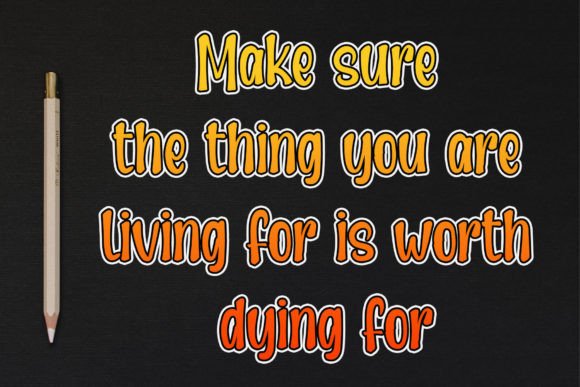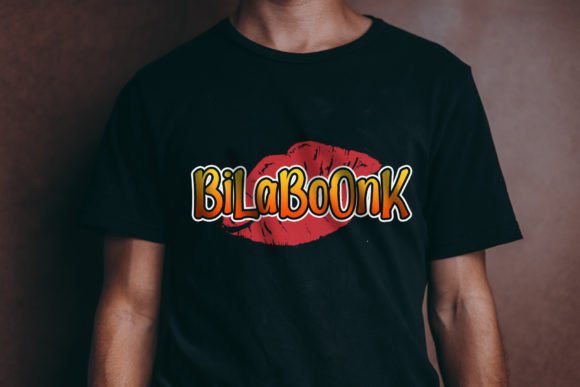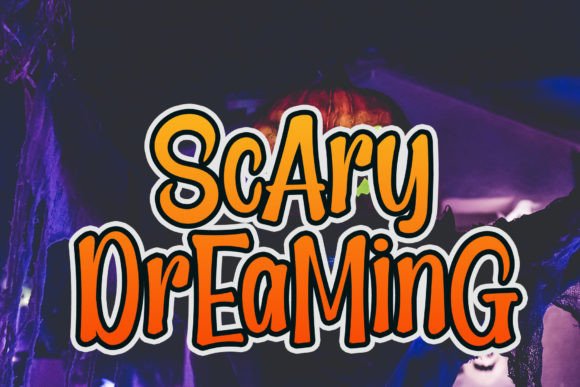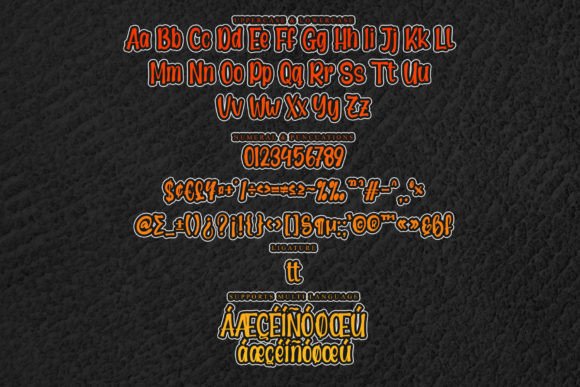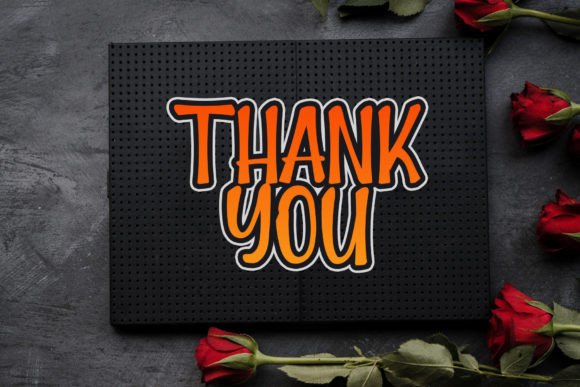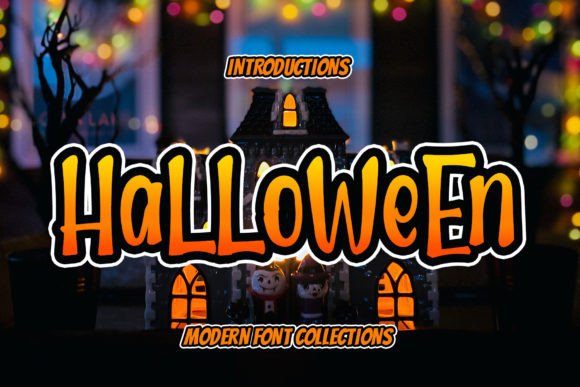
Unleash the Spooky Spirit with Halloween Font: A Sweet and Spooky Handwritten Delight
Halloween is just around the corner, and what better way to get into the spirit than with a font that’s as sweet as it is spooky? Look no further than the Halloween Font, a gentle yet bold handwritten font that’s perfect for adding a touch of eerie elegance to your designs. In this article, we’ll dive into the world of Halloween Font and explore how this versatile typeface can elevate your projects and make them stand out from the crowd.
The Perfect Blend of Sweet and Spooky
Halloween Font is a masterful blend of contradictory characteristics. On one hand, it’s a sweet and gentle font that’s perfect for creating designs that are playful and fun. On the other hand, it’s also spooky and eerie, making it ideal for projects that require a touch of darkness and intrigue. This unique blend of characteristics makes Halloween Font the perfect choice for designers and crafters who want to create designs that are both captivating and memorable.
A Versatile Font for a Variety of Design Ideas
One of the best things about Halloween Font is its versatility. This font is perfect for a wide range of design ideas, from Halloween-themed party invitations and decorations to spooky social media graphics and blog posts. Whether you’re creating a DIY craft project or a professional design, Halloween Font is sure to add a touch of magic and wonder to your work.
Adding a Joyful and Bold Touch to Your Projects
Halloween Font is more than just a font – it’s an experience. With its bold and playful lettering, this font is sure to add a joyful and energetic touch to your projects. Whether you’re creating a design for a kids’ party or a spooky movie night, Halloween Font is the perfect choice for adding a touch of excitement and enthusiasm to your work.
Halloween Font is a dream come true for designers and crafters. With its easy-to-read lettering and versatile design, this font is perfect for a wide range of projects, from handmade cards and invitations to professional designs and graphics. Whether you’re a seasoned designer or a crafty DIY enthusiast, Halloween Font is sure to become a favorite in your collection.
Tips for Using Halloween Font
Here are a few tips for getting the most out of Halloween Font:
- Use Halloween Font to create eye-catching headings and titles that are sure to grab attention.
- Pair Halloween Font with other fonts to create a unique and memorable design.
- Use Halloween Font to create custom illustrations and graphics that are sure to stand out.
In conclusion, Halloween Font is a sweet and spooky handwritten font that’s perfect for adding a touch of magic and wonder to your designs. With its versatile design and bold lettering, this font is sure to become a favorite among designers and crafters. Whether you’re creating a Halloween-themed design or just want to add a touch of spooky elegance to your work, Halloween Font is the perfect choice. So why wait? Download Halloween Font today and start creating designs that are sure to cast a spell on your audience!
Key Features of Halloween Font
- Sweet and spooky handwritten design
- Perfect for a wide range of design ideas
- Bold and playful lettering
- Easy to read and versatile
- Ideal for designers and crafters